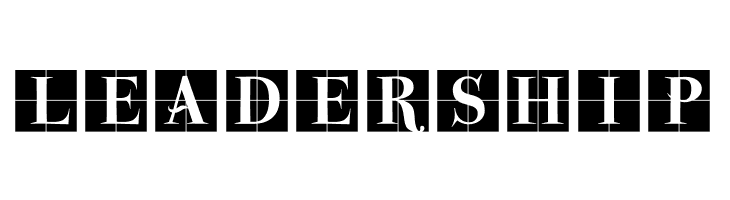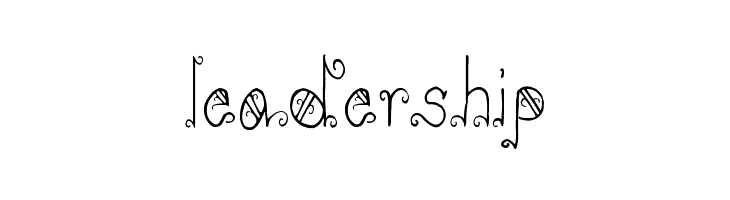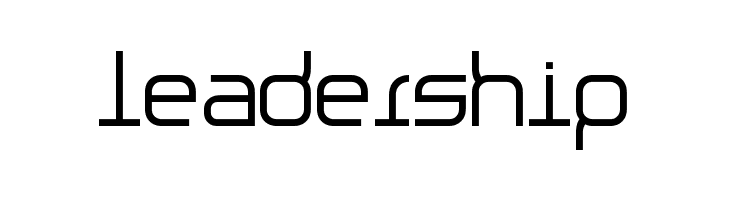
• Feeling Lovely
An elegant script font with flowing, cursive letterforms and decorative flourishes.
• Feminista
A graceful script font with fluid, cursive strokes and elegant flourishes.
• Fernynda
A lively and elegant script font with a modern twist.
• Fernynda
A lively, modern script font with elegant curves and dynamic strokes.
• Fete Accompli NF
A bold, decorative font with intricate geometric patterns.
• FeteAccompliNF
A bold, decorative font with intricate patterns and high contrast.
• FewYearsLater
A playful and decorative font featuring dinosaur-like creatures as characters.
• Fhoota Mhorgana
An artistic and elegant font with decorative uppercase and stylish lowercase letters.
• FIFA Welcome
• Fighting Spirit TBS
A bold, dynamic font with sharp, jagged edges and an energetic style.
• Fighting Spirit TBS Bold
A bold, dynamic font with sharp, angular strokes and a graffiti-like style.
• Fighting Spirit turbo
A bold, angular font with sharp, dynamic lines and an energetic style.
A bold, italic font with sharp, angular edges and dynamic movement.
• Fighting Spirit turbo Italic
A bold, italicized font with sharp, angular strokes and a dynamic, aggressive style.
• Figurny
A whimsical, decorative font with playful curls and loops.
• Fiker
A bold, geometric font with a futuristic and blocky design.
• Fiker Futura